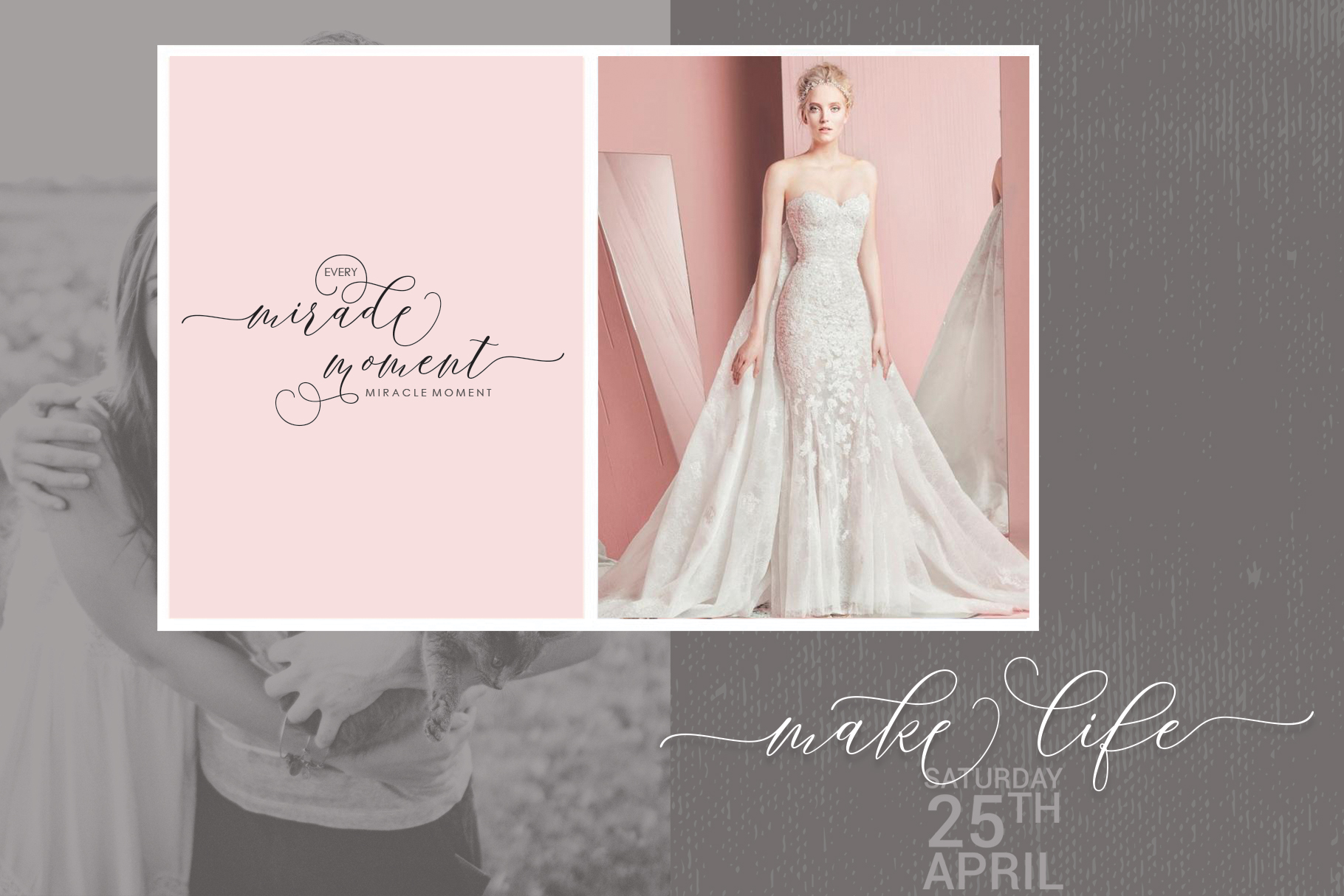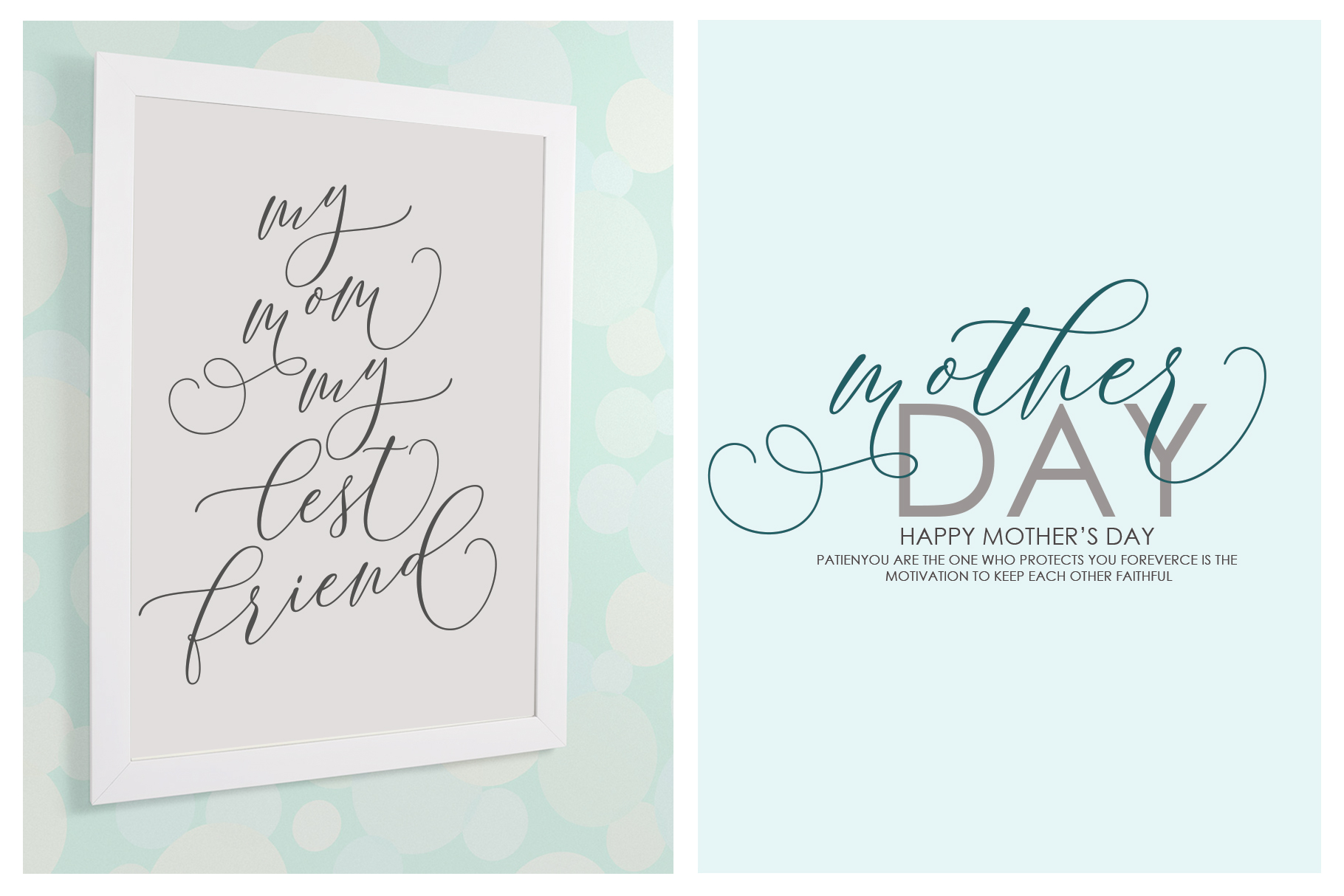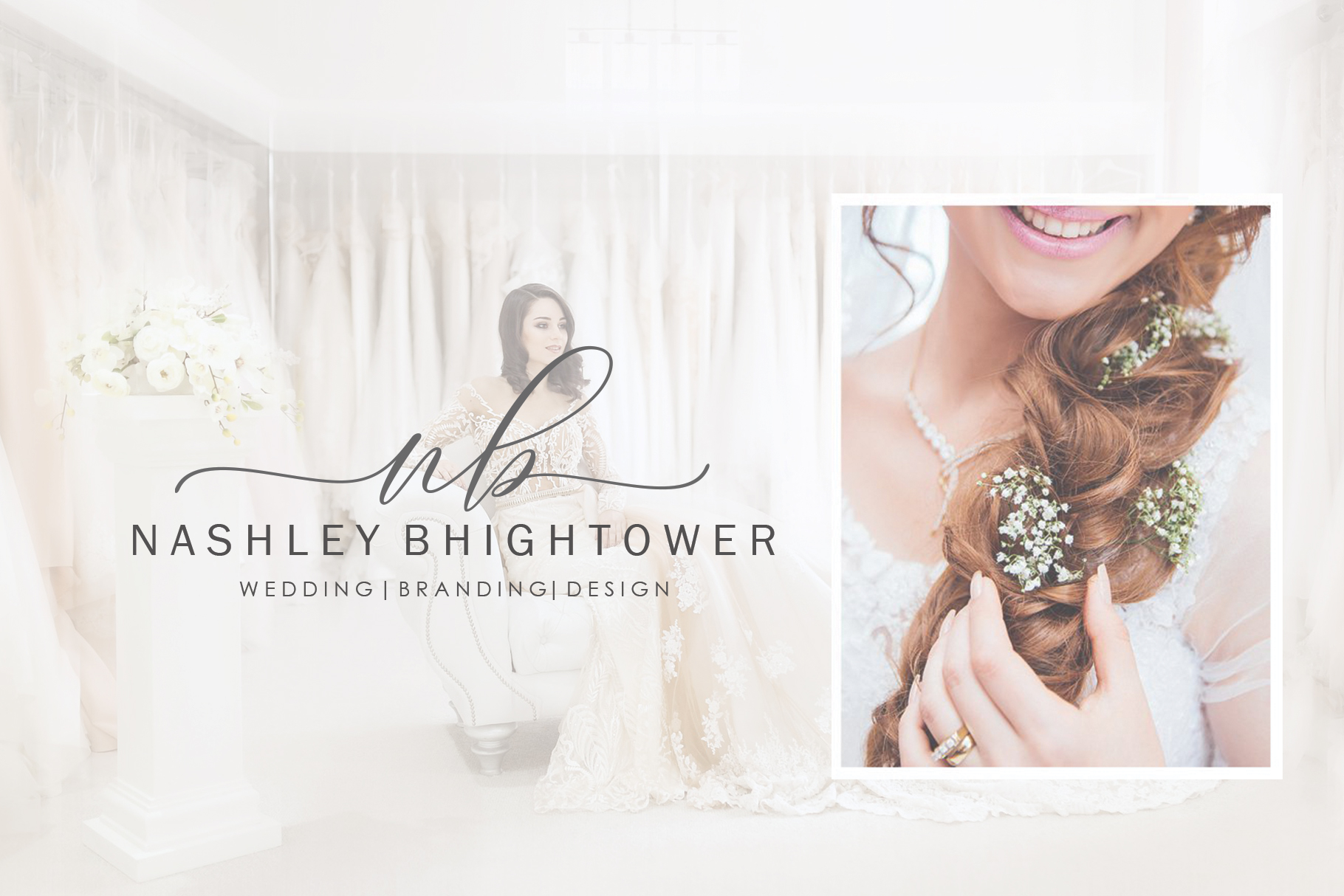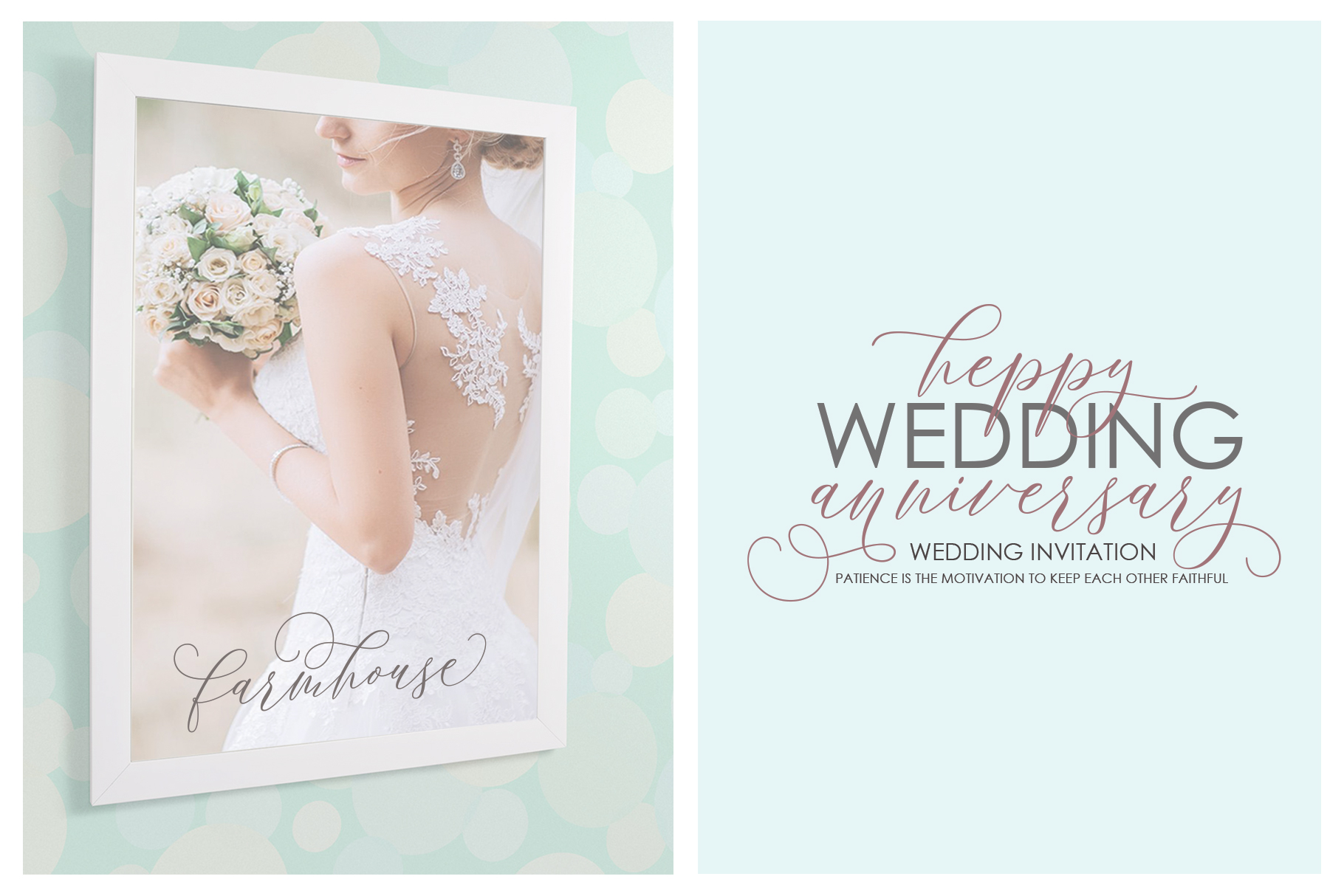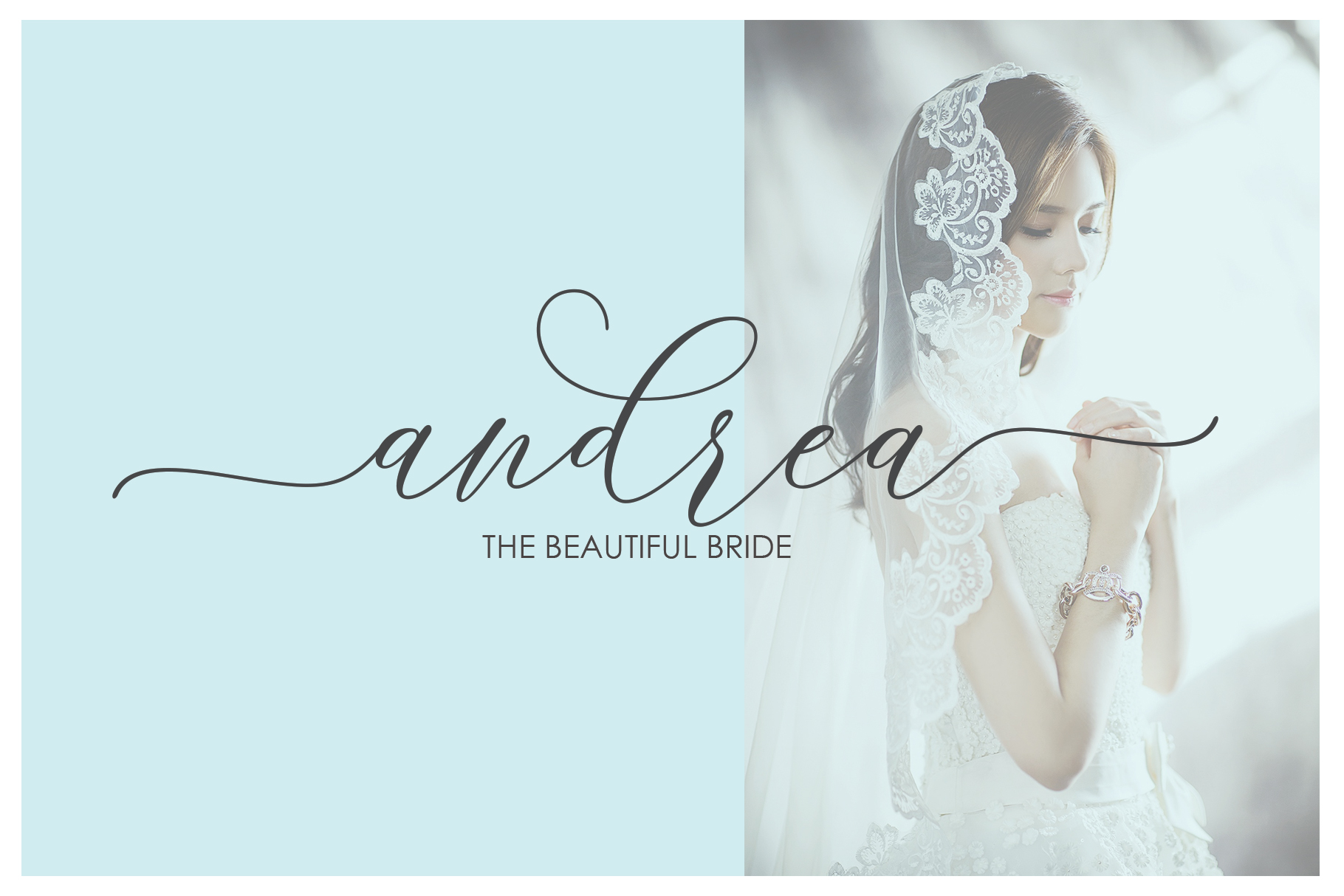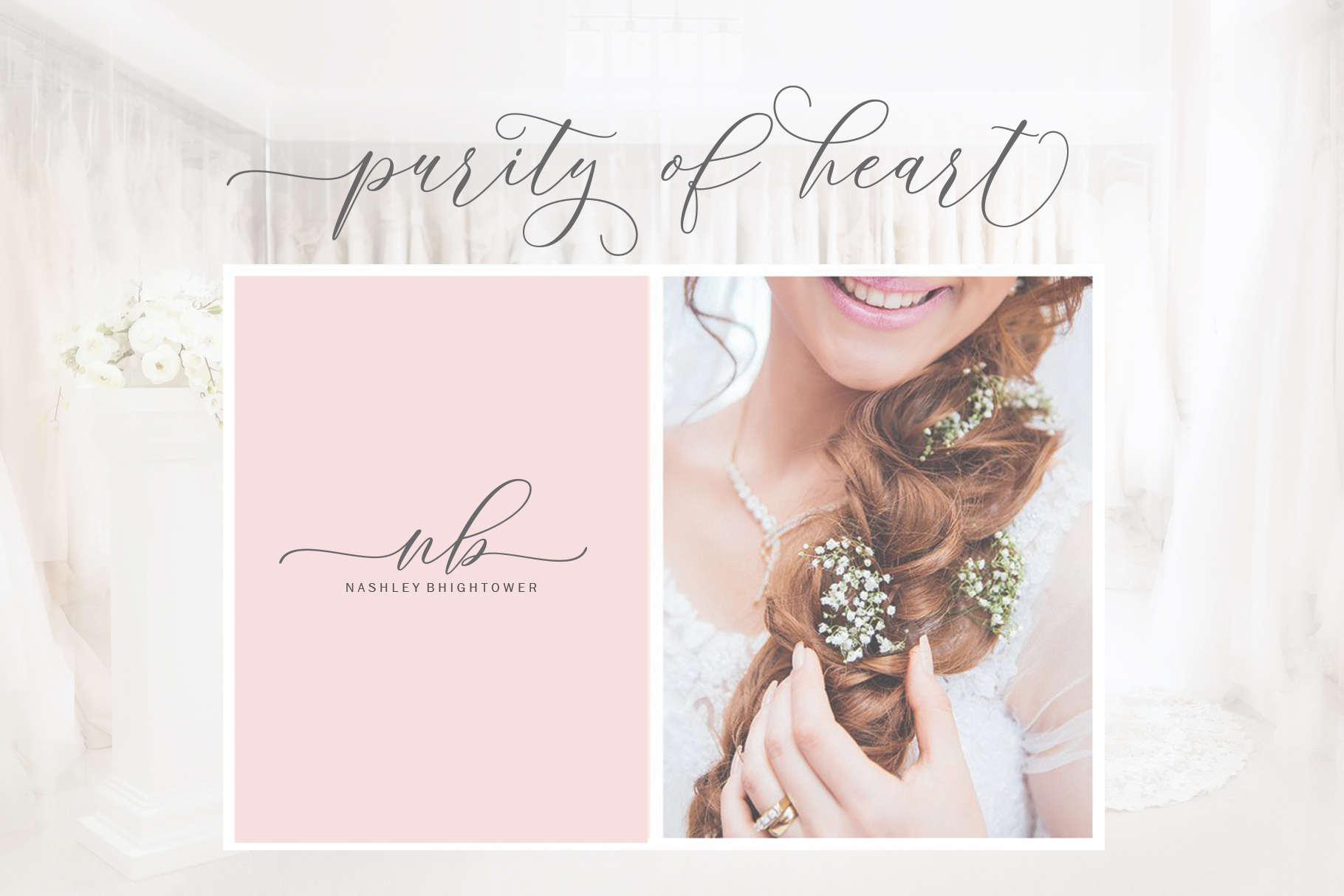
Introducing Farmhouse Font: Elevate Your Designs with Elegance and Class
Are you looking for a font that adds a touch of sophistication and refinement to your designs? Look no further than Farmhouse Font, a stunning calligraphic font that exudes elegance and class. Specially crafted for designers, crafters, and creatives, Farmhouse Font is the perfect addition to your typography collection.
A Beautiful and Refreshing Look
Farmhouse Font is designed to bring a beautiful and refreshing look to your designs. With its intricate and flowing lines, this font is perfect for creating stunning headings, titles, and quotes. Whether you’re working on a branding project, a wedding invitation, or a social media graphic, Farmhouse Font is sure to make your design stand out.
Customizable Designs with Stylistic Sets, Initials, Swashes, and Ligatures
What sets Farmhouse Font apart is its extensive range of features, including stylistic sets, initials, swashes, and ligatures. This means you can customize your designs to your heart’s content, creating unique and personalized typography that reflects your brand or style.
- Stylistic Sets: Alternate characters and glyphs to create a unique look and feel.
- Initials: Beautifully designed initials to add a touch of elegance to your designs.
- Swashes: Decorative flourishes to add a touch of drama and sophistication.
- Ligatures: Special character combinations to create a seamless and flowing look.
Farmhouse Font is perfect for designers and crafters who need a high-quality font that can elevate their designs. Whether you’re working on a commercial project or a personal craft, this font is sure to impress. With its elegant and refined look, Farmhouse Font is ideal for:
- Branding and Logo Design: Create stunning logos and brand identities with Farmhouse Font.
- Wedding and Event Design: Add a touch of elegance to your wedding invitations, stationery, and event graphics.
- Social Media Graphics: Create eye-catching social media graphics, quotes, and posters with Farmhouse Font.
- Crafting and Scrapbooking: Add a personal touch to your crafts and scrapbooking projects with this beautiful font.
Why Choose Farmhouse Font?
With so many fonts available, why choose Farmhouse Font? Here are just a few reasons:
- Unique and Elegant Design: Farmhouse Font is a one-of-a-kind font that adds a touch of sophistication to your designs.
- High-Quality and Versatile: This font is perfect for a wide range of design projects, from commercial to personal.